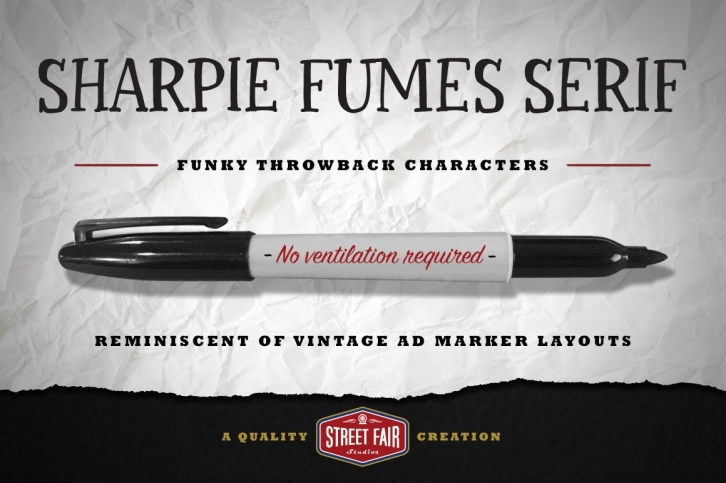
Sharpie Fumes Serif is the newest member of the Sharpie Fumes family. Back when I was in design school, B.C. (before computers), we had to hand letter every layout we created. Between the marker fumes in creating these layouts, and the all nighters, we would get pretty loopy. I remember locking a fellow student in his rolling supply locker, and rolling him into the elevator at about 3 am, but I'll save that for another day.
Sharpie Fumes Serif evolved from my early layouts, when a serif font was needed. This would be the rough version to flesh out an ad layout, before creating the finished comprehensive layout, or "comp". Later, in my career, I was able to approximate a serif font pretty quickly while concepting for different projects, and that's where Sharpie Fumes Serif (and the related Sans and Mono versions) came from. It'll give your work a nice, quirky handmade feel, and Sharpie Fumes Serif plays well with its compadres.